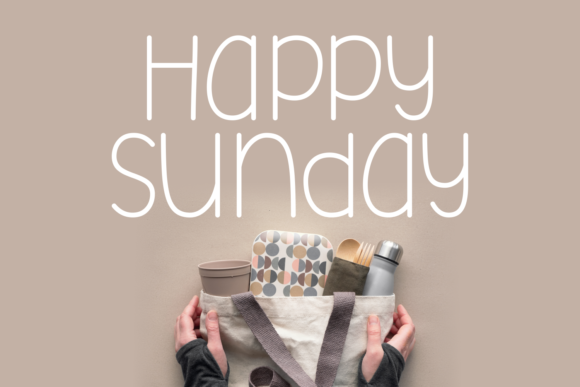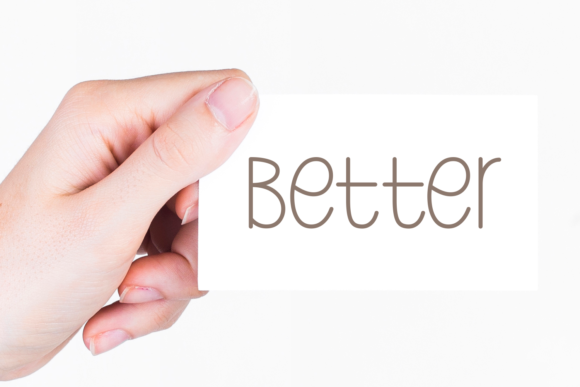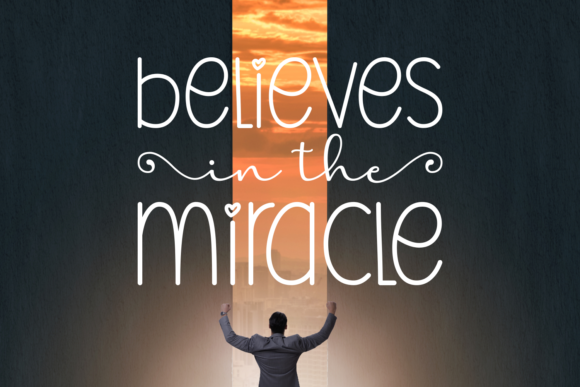
Introduction to Miracle Nighty Font
As a designer, have you ever stared at a blank canvas, feeling stuck and unsure of where to begin? We’ve all been there. But what if the perfect design resource could magically appear, sparking your creativity and guiding you towards a masterpiece? Enter the Miracle Nighty Font, a minimal and neat sans serif font that’s about to become your new go-to design companion.
This high-quality font is a game-changer for designers, offering a clean and versatile aesthetic that can be easily matched to a wide range of creative projects. Whether you’re working on a branding project, a brochure, or even a website, the Miracle Nighty Font is sure to bring your ideas to life. And the best part? It’s available for free download, making it an invaluable addition to any designer’s toolkit.
Key Features of Miracle Nighty Font
- High-quality design resource suitable for creative projects, offering a unique and elegant style.
- Features a transparent background, allowing for easy integration with various design elements and backgrounds.
- Designed with a modern and sophisticated aesthetic, making it perfect for use in high-end creative projects.
- High-resolution design, suitable for use in print and digital projects, including posters, brochures, and website headers.
- Perfect for designers and artists looking for a unique and eye-catching font to elevate their creative project.
Honest Review: Miracle Nighty Font
As a designer, I’m always on the lookout for high-quality design resources to elevate my creative projects. Recently, I came across the Miracle Nighty Font and was excited to put it to the test.
Here’s what I love about this font:
- ✨ It’s incredibly versatile and can be used for a variety of design applications, from headings to body text.
- ✨ The font is highly customizable, allowing me to adjust the size, color, and spacing to suit my design needs.
- ✨ The transparent background feature is a game-changer, making it easy to layer this font over images or other design elements.
- ⚠️ The font can be a bit heavy-handed, making it less suitable for smaller text sizes.
- ⚠️ I experienced some issues with the font’s legibility on certain devices, which required some adjustments to the font size and spacing.
Overall, I’m impressed with the Miracle Nighty Font and would recommend it to designers looking for a high-quality, free download to add some creativity to their projects. With a little tweaking, this font can be a valuable addition to any design arsenal.
For the best results, use the Miracle Nighty Font in conjunction with a high-quality design. Experiment with different font sizes, colors, and styles to create a unique and eye-catching design. The transparent background option allows for endless creative possibilities.
The Miracle Nighty Font is perfect for a variety of creative projects, including logos, brochures, business cards, and social media graphics. Its high quality and versatility make it an excellent addition to any design resource.